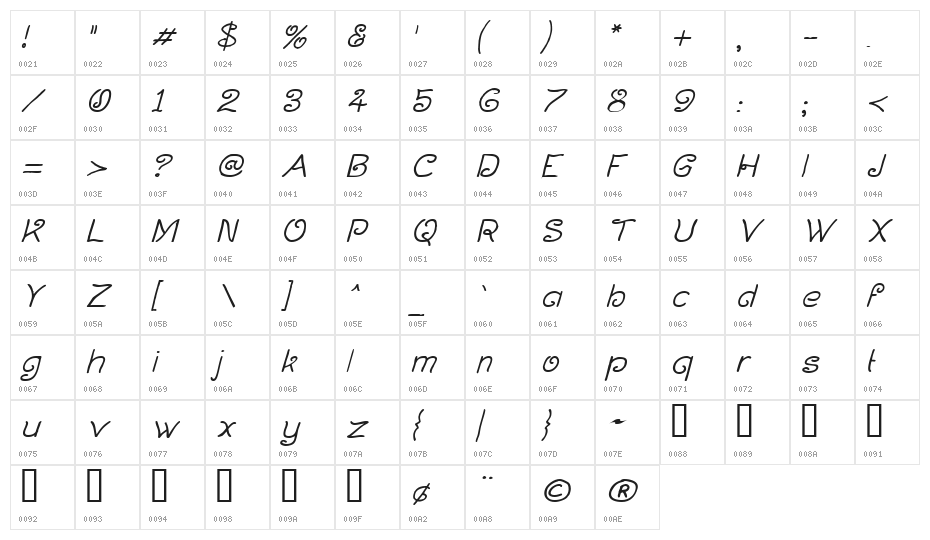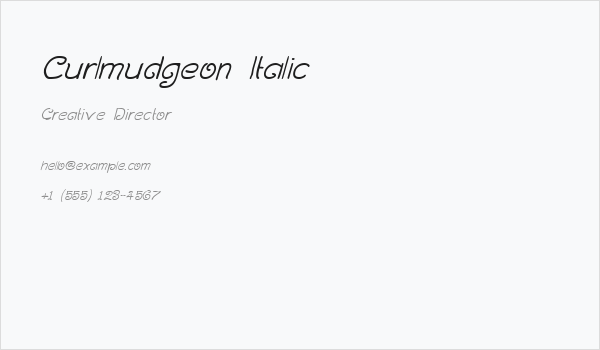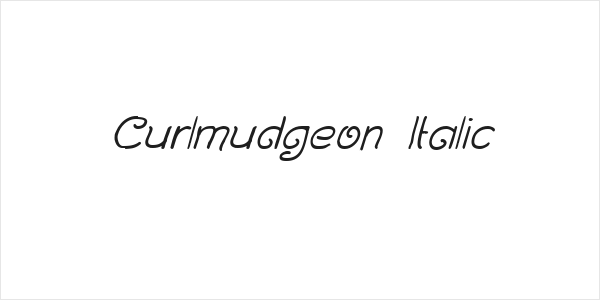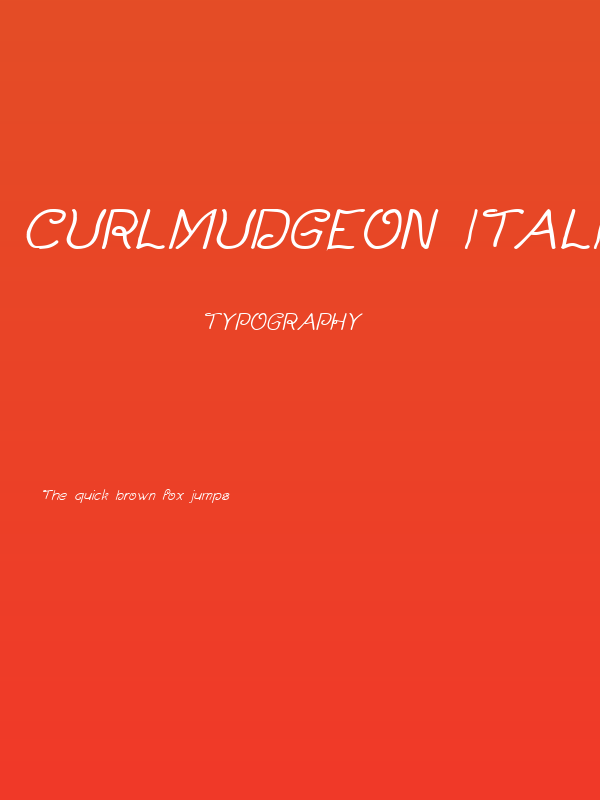
Curlmudgeon Italic Font
Curlmudgeon Italic Description
This font features a playful and whimsical style with a handwritten appearance. The characters are slightly slanted, giving it an italicized look. Each letter has a unique, flowing form with rounded edges and a consistent stroke width, contributing to its friendly and approachable feel. The numbers and special characters maintain the same playful aesthetic, making it suitable for creative and informal designs. The overall design is cohesive, with a balance between readability and decorative flair.
| Proposed Projects | Ideal for greeting cards, children's books, playful branding, and creative invitations. |